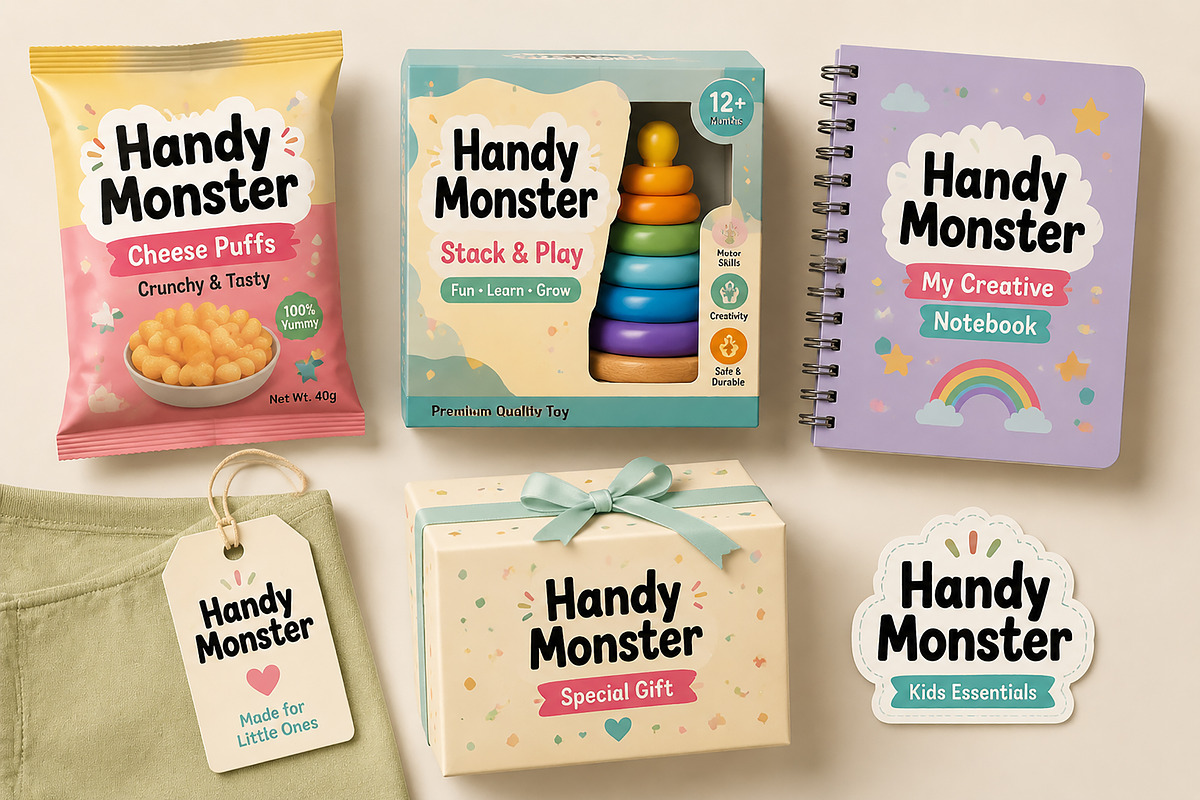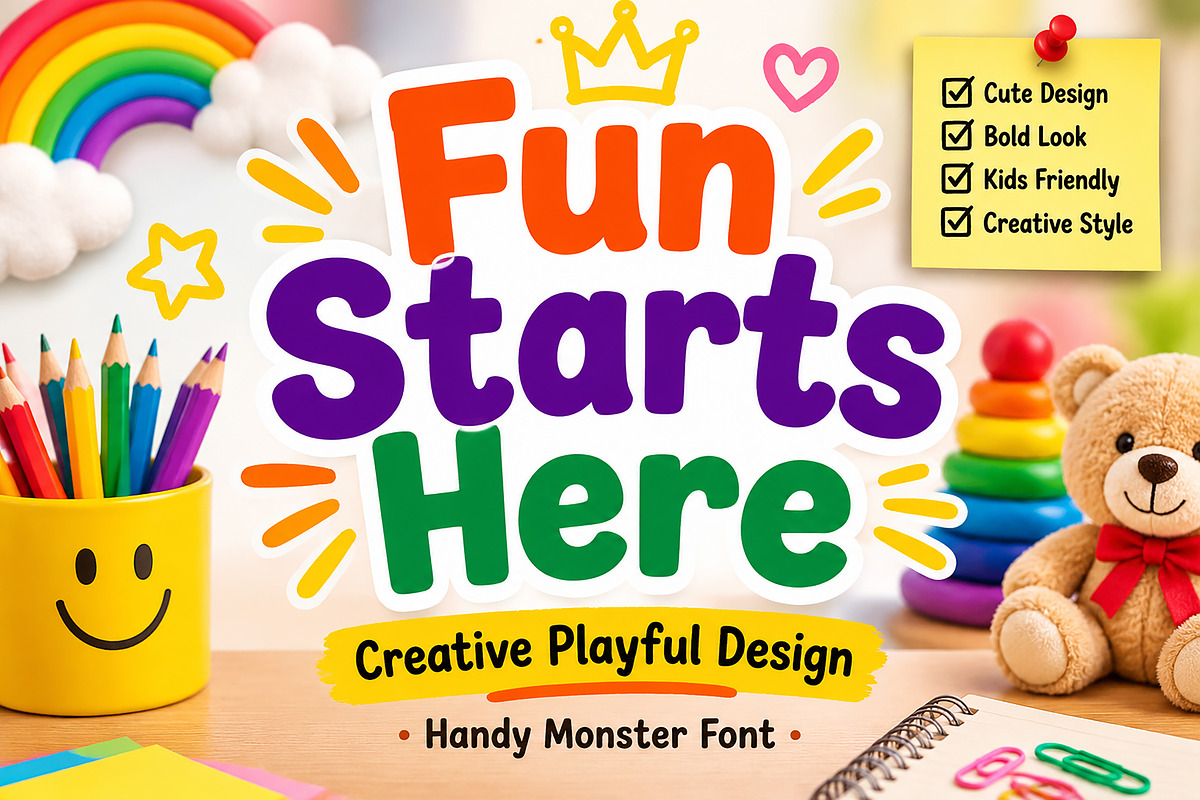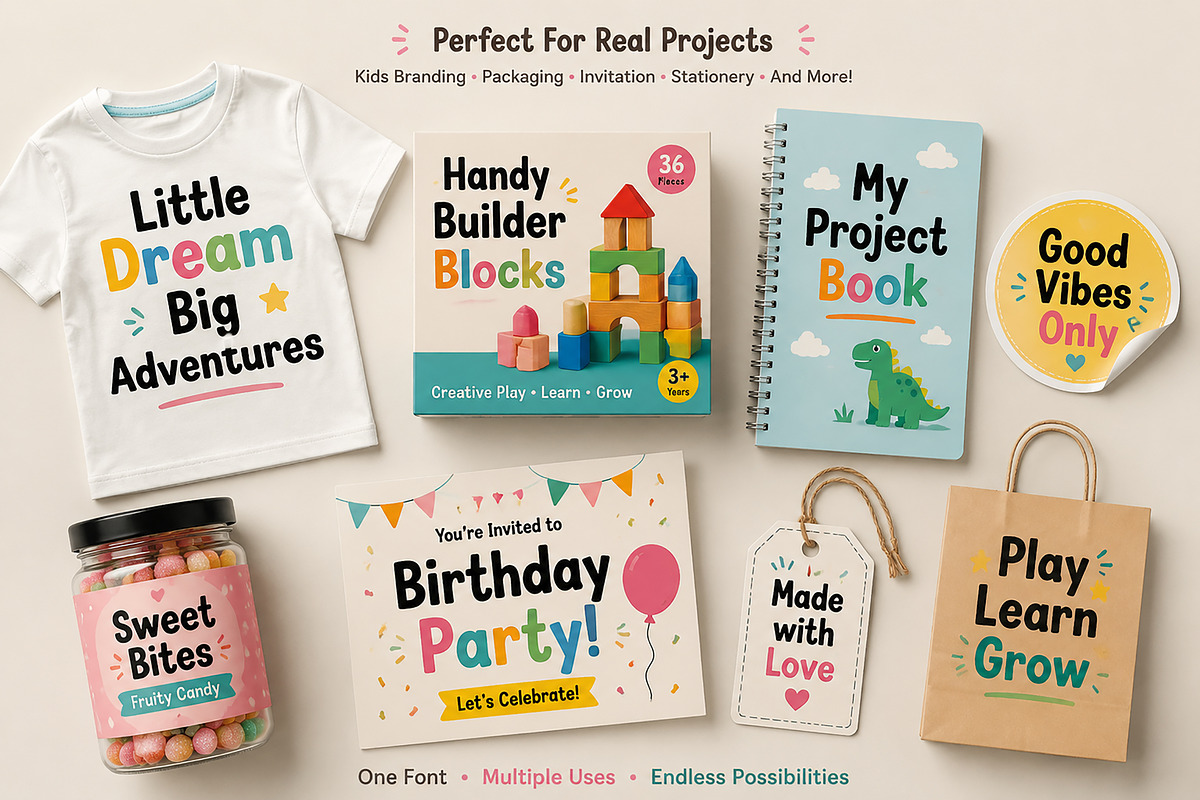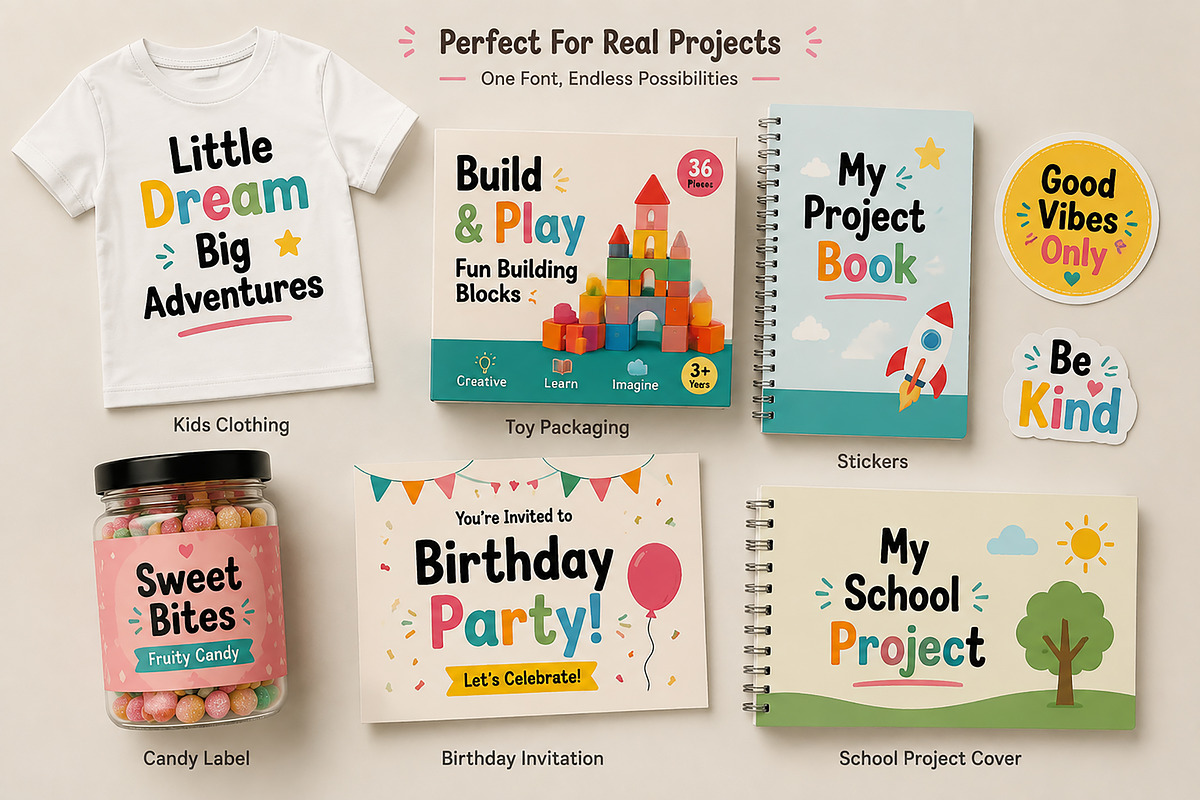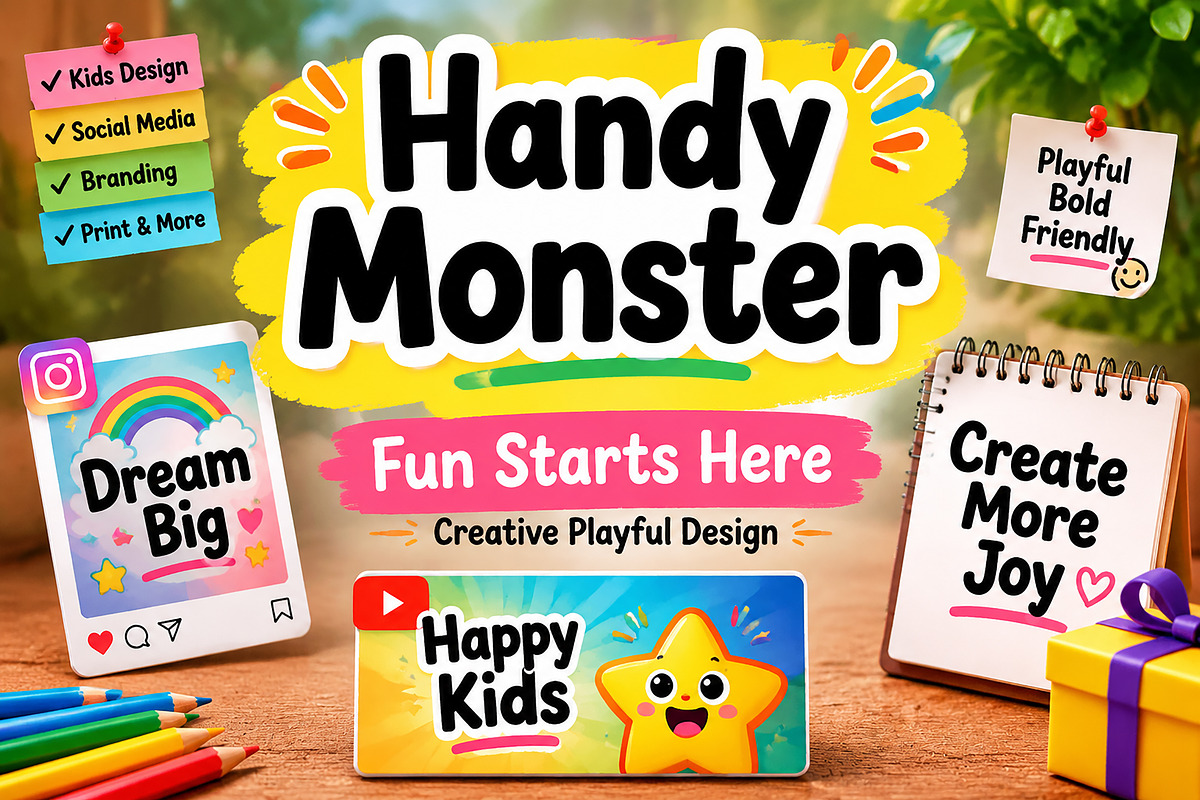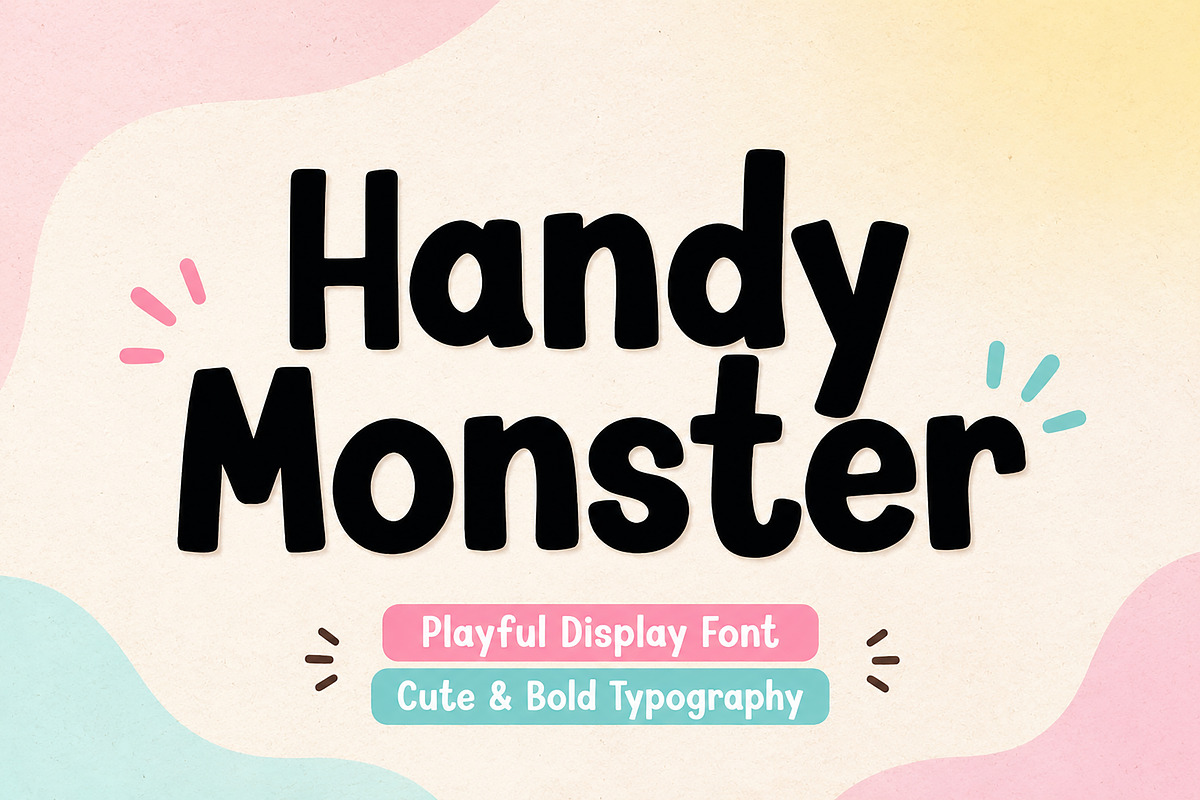
Handy Monster
Handy Monster – Playful Display Font
Description
Meet Handy Monster, a fun and friendly display font designed to bring creativity, happiness, and playful energy to your designs. With its bold rounded shapes and charming personality, this typeface is perfect for kids’ branding, packaging, posters, social media graphics, logos, and many other creative projects.
Handy Monster is created for designers who need a bold yet approachable font that instantly adds a cheerful and modern feel. Its smooth curves and strong letterforms make it highly readable while keeping a playful handmade touch.
Kids branding and products
Toy packaging
Candy and snack labels
Clothing designs
Birthday invitations
School projects
Logo design
Posters and advertisements
Stickers and stationery
Whether you are creating a children’s brand, a fun product identity, or a creative marketing design, Handy Monster helps your ideas stand out with a unique and memorable look.
✔ Playful bold display style
✔ Cute rounded letterforms
✔ Modern kids-friendly typography
✔ Perfect for branding and commercial projects
✔ Great readability at large sizes
✔ Suitable for print and digital designs
Recommended Uses
Children’s brands, toys, apparel, packaging, invitations, posters, YouTube thumbnails, Instagram designs, logos, labels, and creative advertising materials.